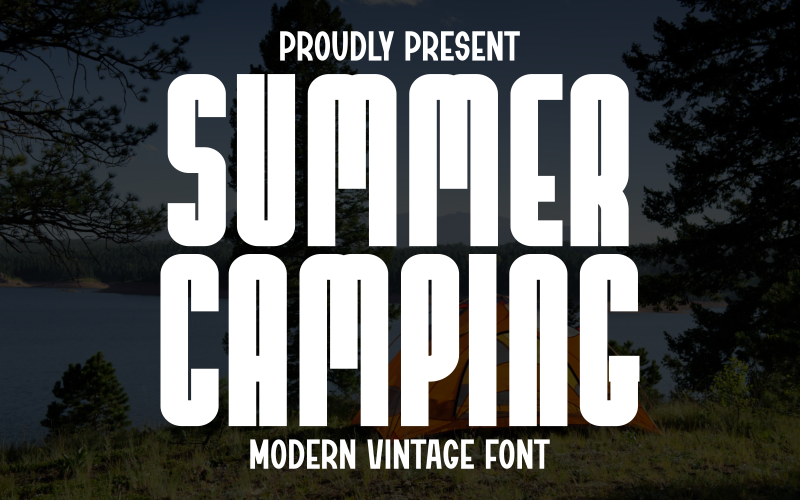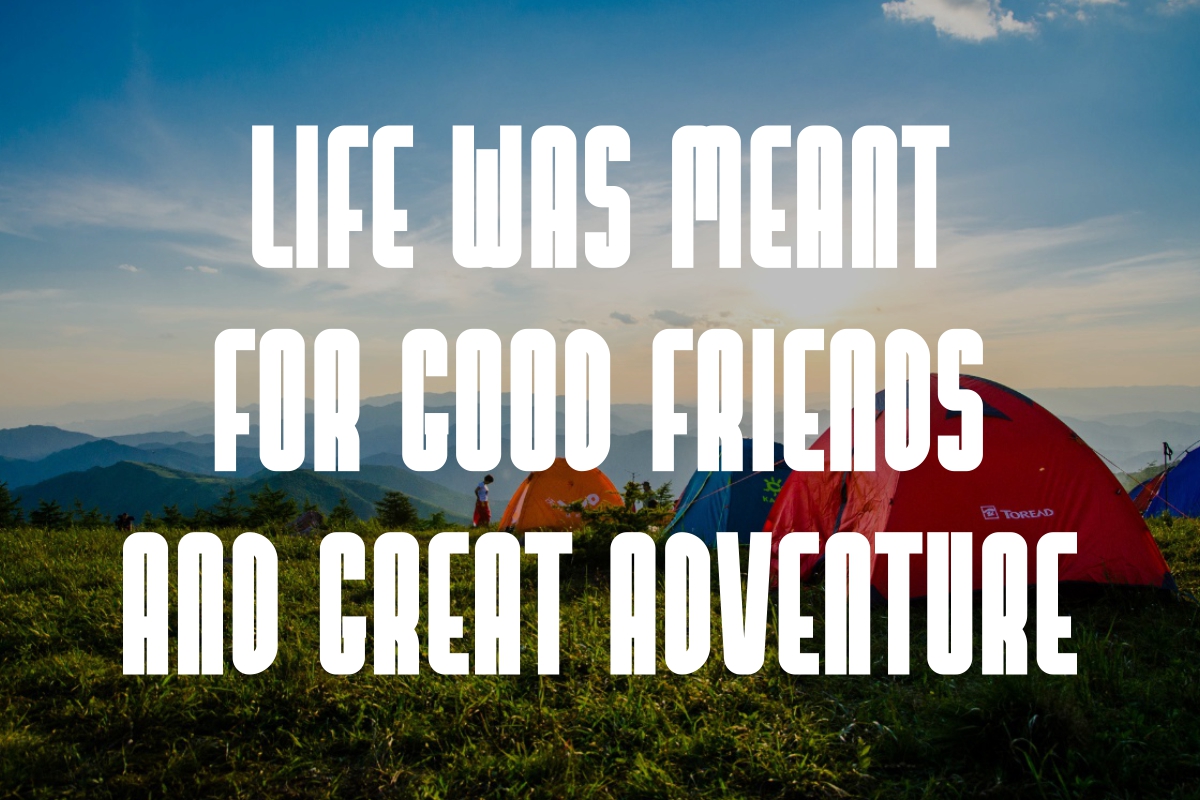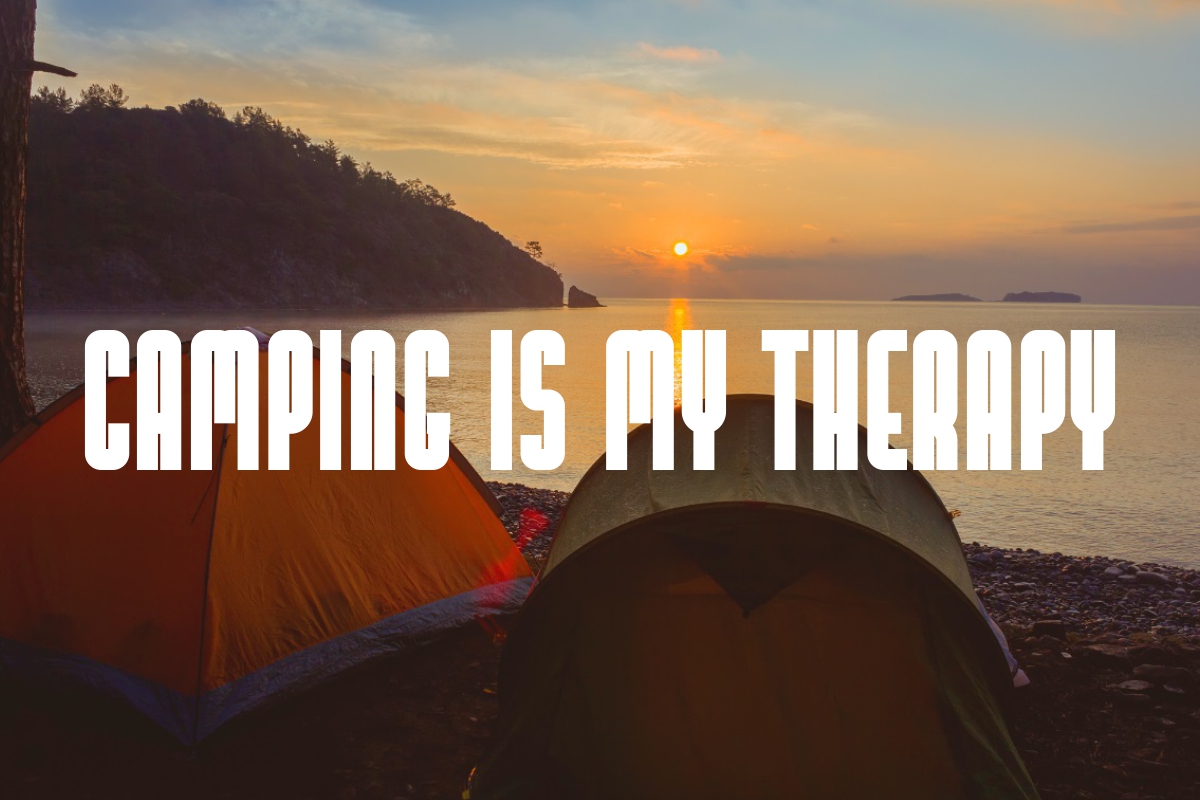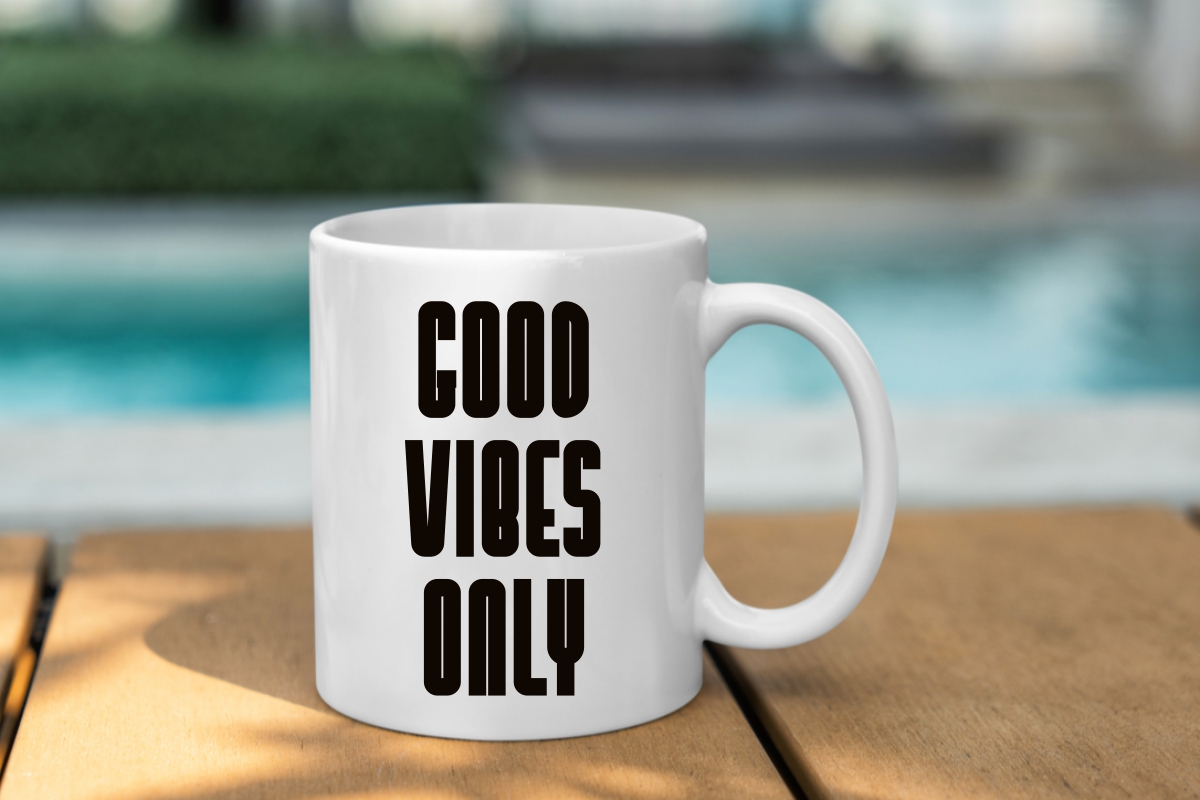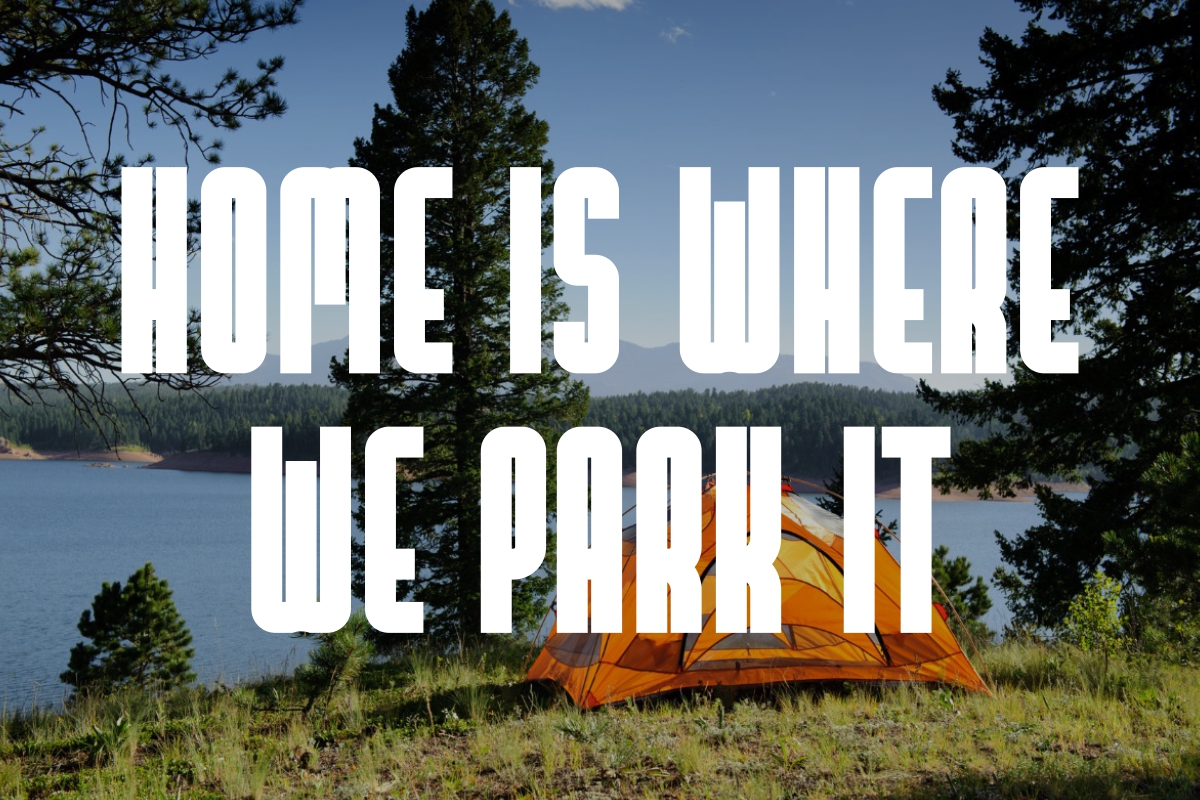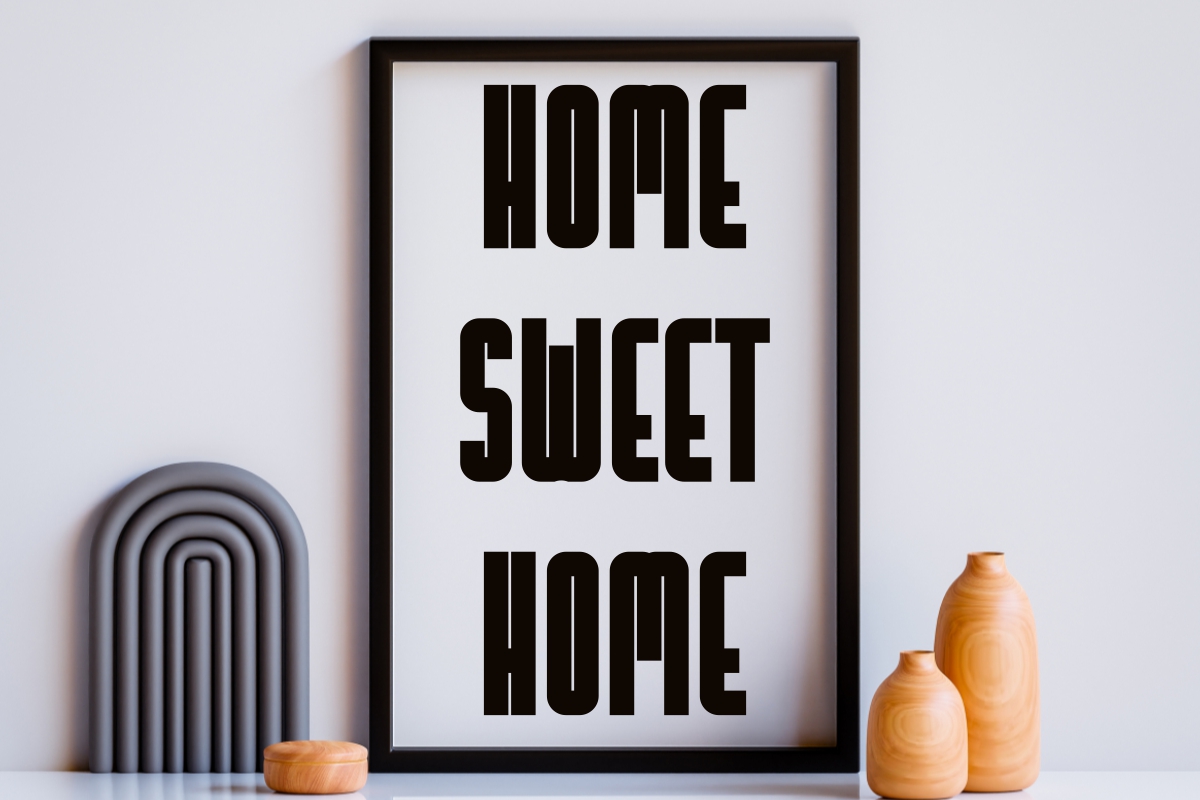
Summer Camping - Modern Vintage Font
Summer Camping is an adventurous and rugged modern vintage display font that perfectly captures the spirit of the outdoors. Its bold, condensed, all-caps letterforms feature distinctly rounded corners, giving it a friendly yet sturdy and retro feel. This typeface is ideal for branding related to travel, outdoor gear, craft beer, vintage posters, t-shirts, and any project needing a nostalgic, hand-crafted, and energetic look. Summer Camping brings a sense of fun and exploration to your typography, making headlines and logos instantly memorable.